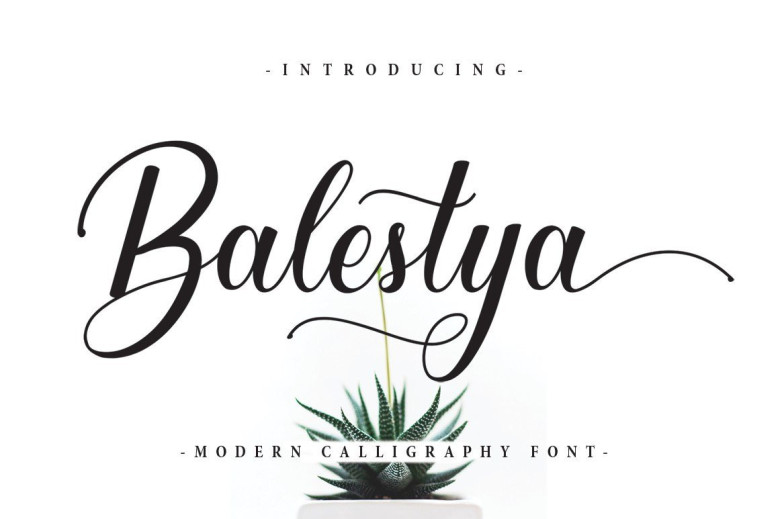
Balestya Modern Calligraphy Font
Balestya Font  is an elegant combination of a script . It is slender, feminine and classy, while still maintaining a friendly feel. Balestya Font is versatile and will work perfectly for e-commerce brands, wedding boutiques, initial name cards or any business that wants to appear upscale and chic.
With its many varian stylistic character Balestya Font is perfect for creating original and functional designs. It has extensive language support and alternates, stylistic sets that add visual interest to every letter.
You can use the Balestya Font for high-end logotypes and magazine headlines, but let’s not forget greeting cards, invitations, posters, ads and the various web and screen usages. This font is free for PERSONAL USE. Link to purchase full version and commercial license: HERE